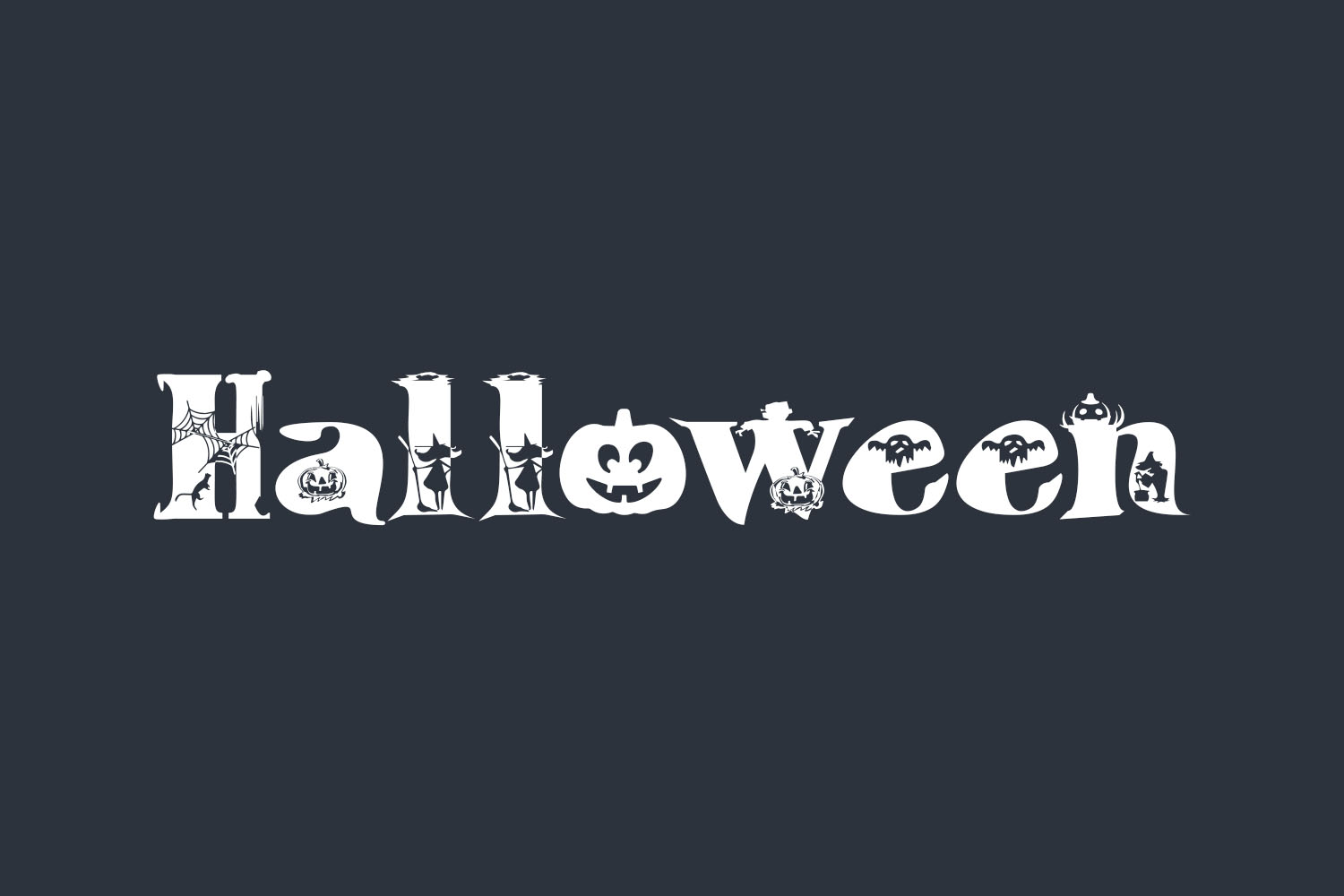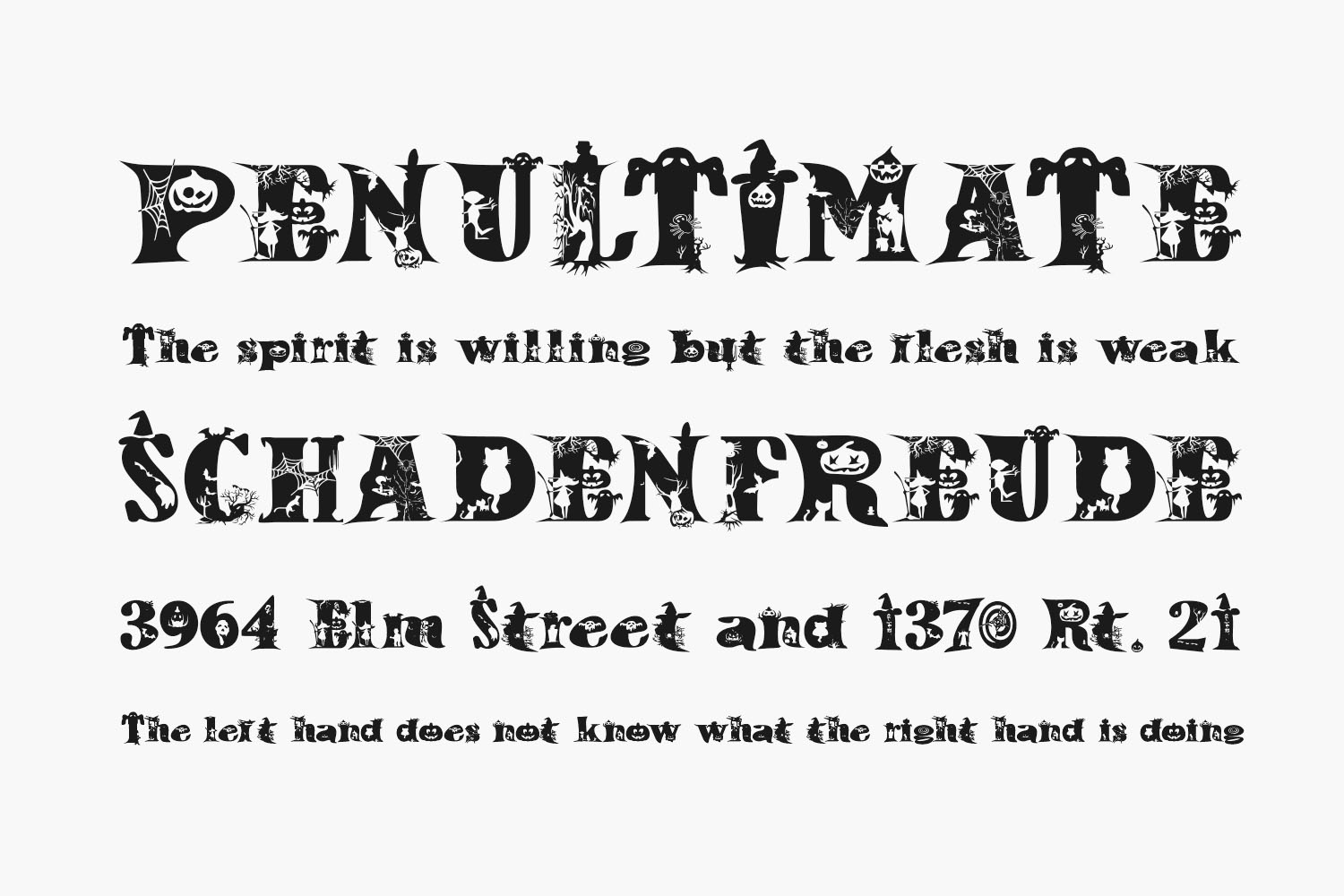
Halloween Free Font is a delightful retro font that effortlessly injects playful nostalgia into your designs. With its whimsical characters and charming Halloween-themed graphics, this font encapsulates the spooky and whimsical fun of yesteryears. Each letter is adorned with adorable ghosts and bats, infusing a vintage charm into your projects. Whether you’re crafting party invitations, decorations, or simply seeking to infuse a touch of retro joy into your Halloween creations, this font is your creative companion. Halloween Free Font is free for personal use only. Please purchase the full version for commercial use.
Designed by Winarko